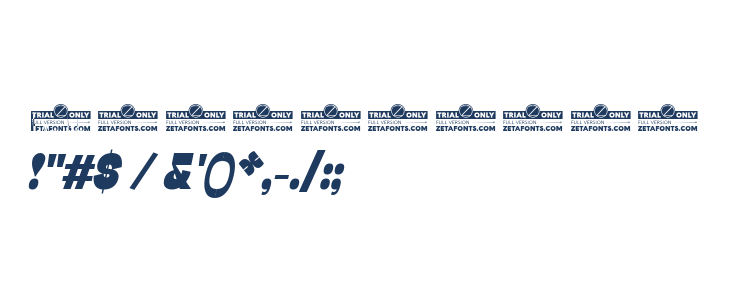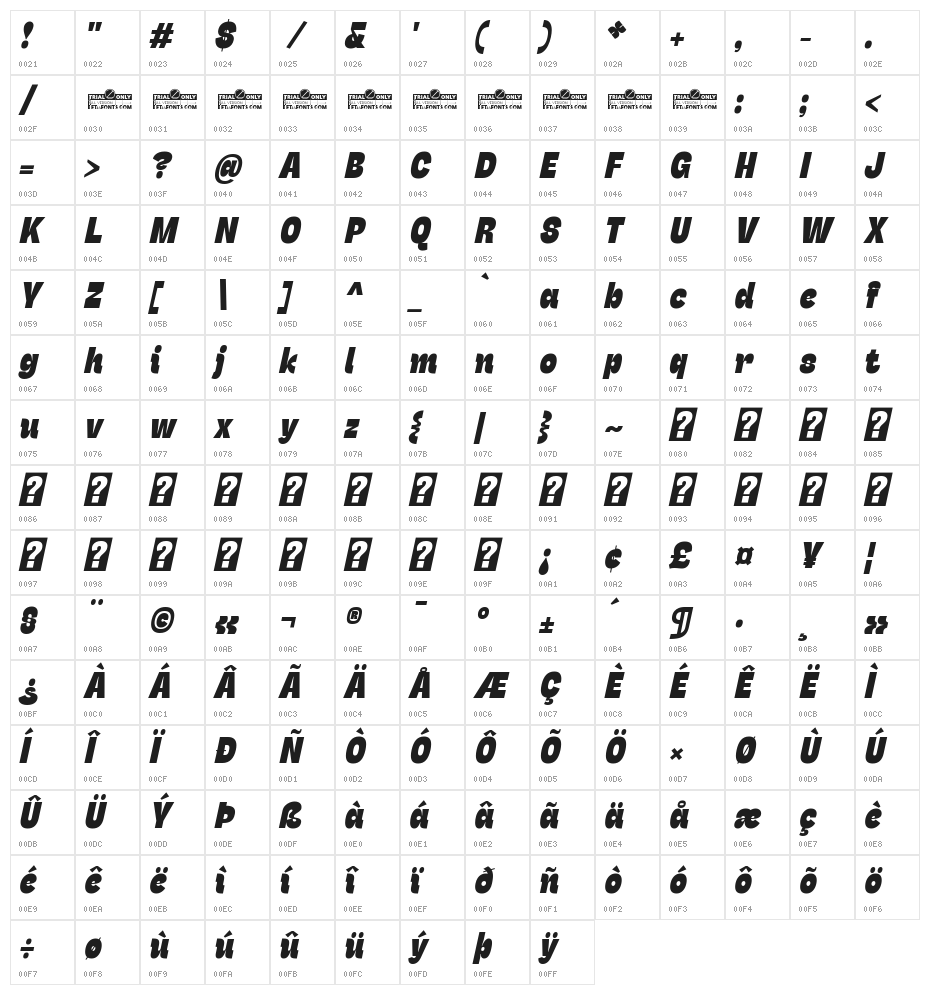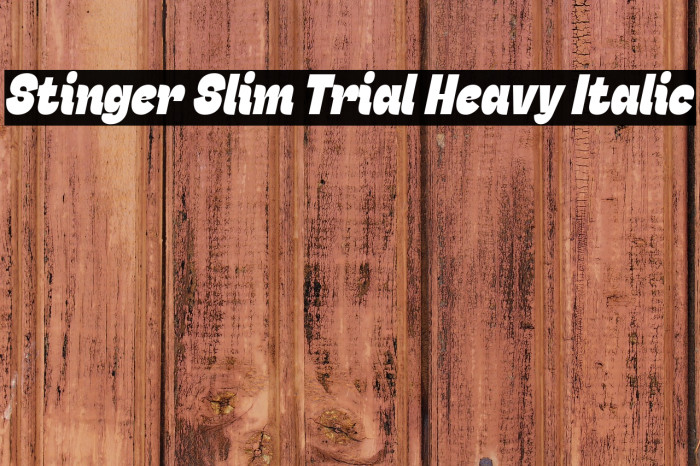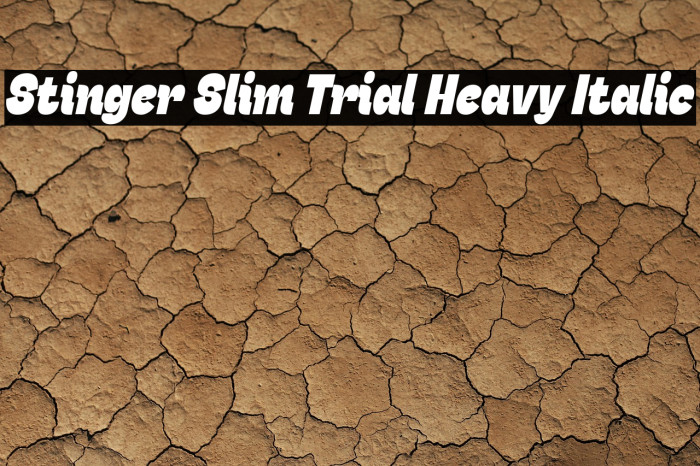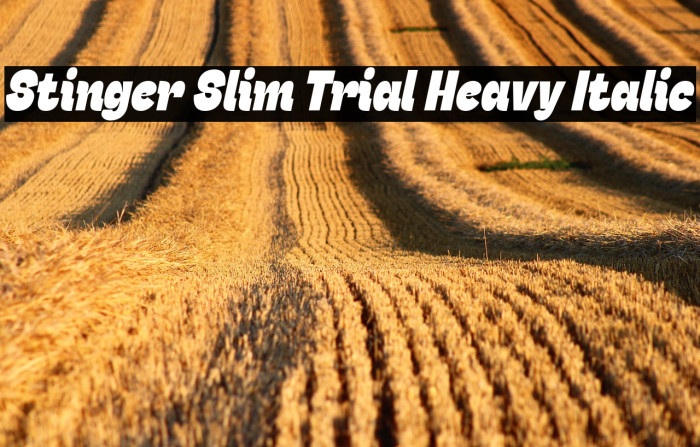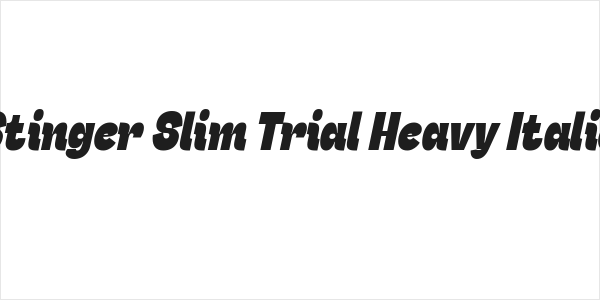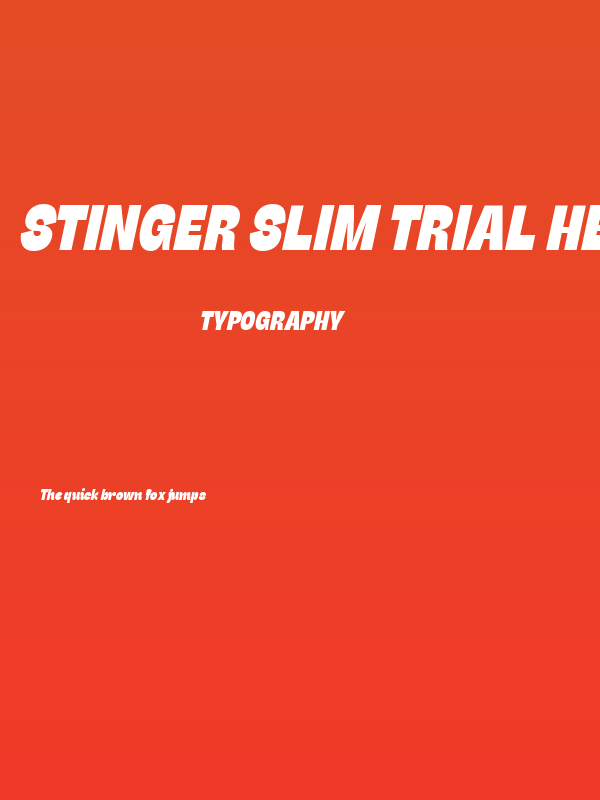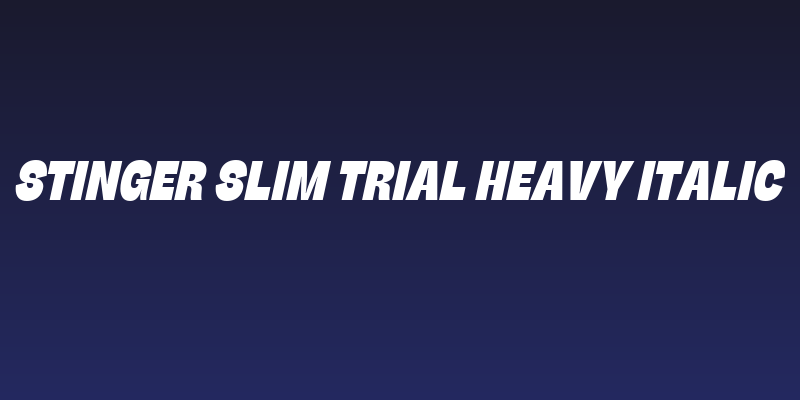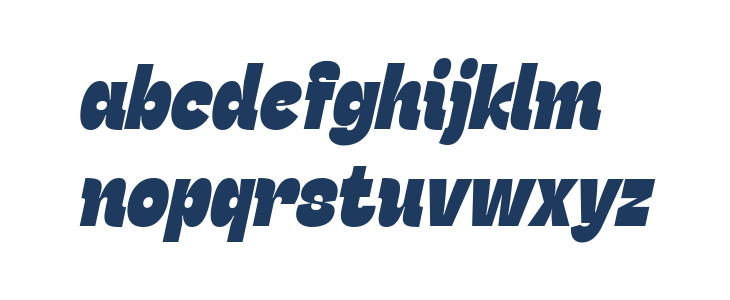
Stinger Slim Trial Heavy Italic Font
Stinger Slim Trial Heavy Italic Description
This font features a bold and dynamic style with a heavy italic slant, giving it a strong and impactful presence. The characters are thick and robust, with a slight curvature that adds a sense of movement and energy. The uppercase and lowercase letters maintain a consistent weight, ensuring readability while emphasizing the font's boldness. The numerals and special characters are designed to match the overall aesthetic, providing a cohesive look across all text elements. This font is ideal for making a statement, with its striking appearance and confident style.